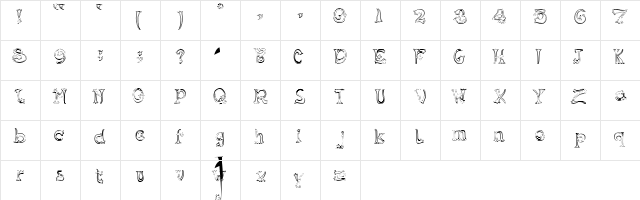
Modi Regular Font Preview
Modi Regular
Modi Regular Font Details
Design Context for Modi Typeface
Modi is a composed and adaptable typeface that performs quietly and consistently across a wide range of design contexts.